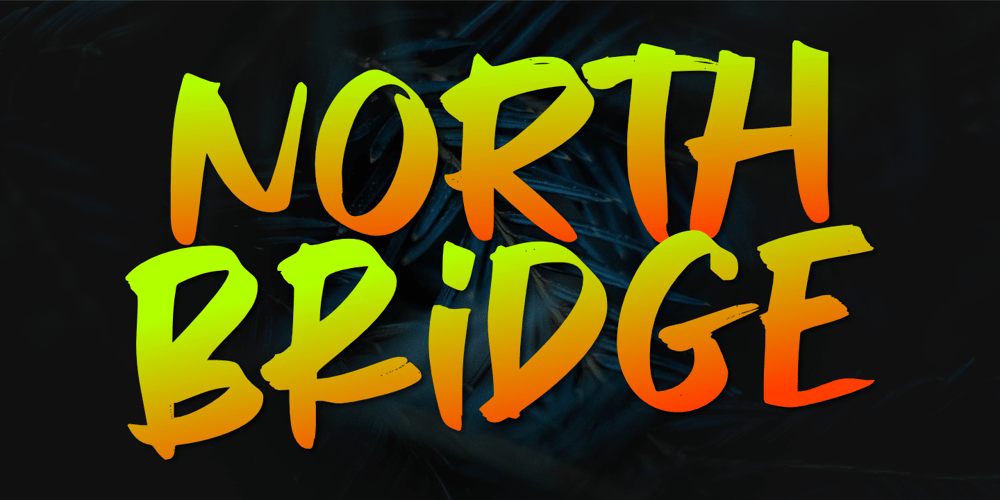
North Bridge Font Family was designed by Aldy Sidik, Nurul Hidayani and published by Olivetype. North Bridge contains 1 styles and family package options. North Bridge is a cool and unique display font. It has a modern yet whimsical style and it will easily immerse your design into a magical world.Features : Basic Latin A-Z & a-z. Numbers, symbols, and punctuations Multilingual Support. Accented Characters : ÀÁÂÃÄÅÆÇÈÉÊËÌÍÎÏÑÒÓÔÕÖØŒŠÙÚÛÜŸÝŽàáâãäåæçèéêëìíîïñòóôõöøœšùúûüýÿžß Thank You.